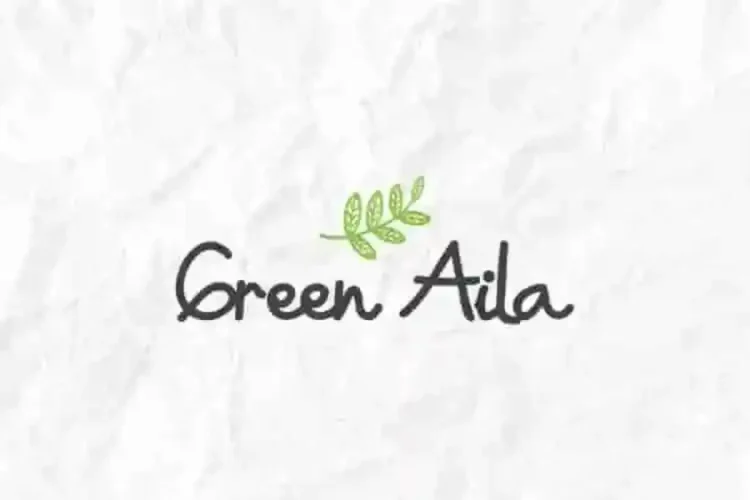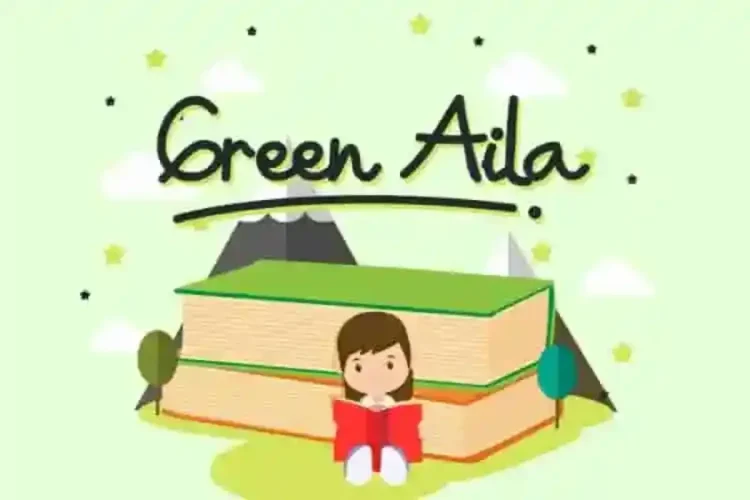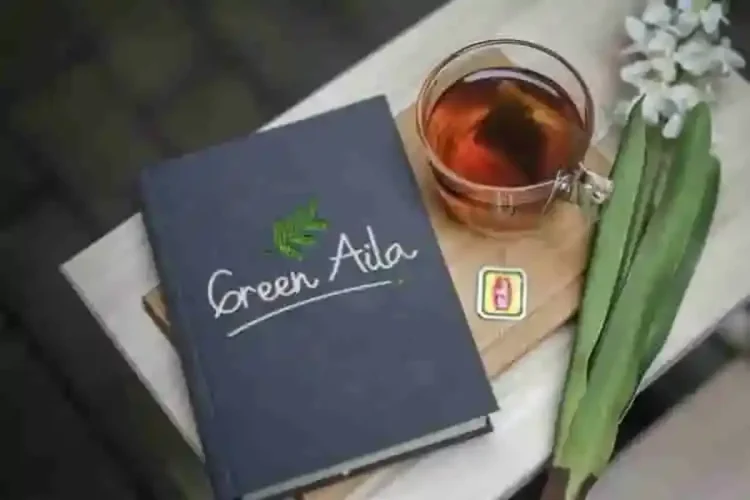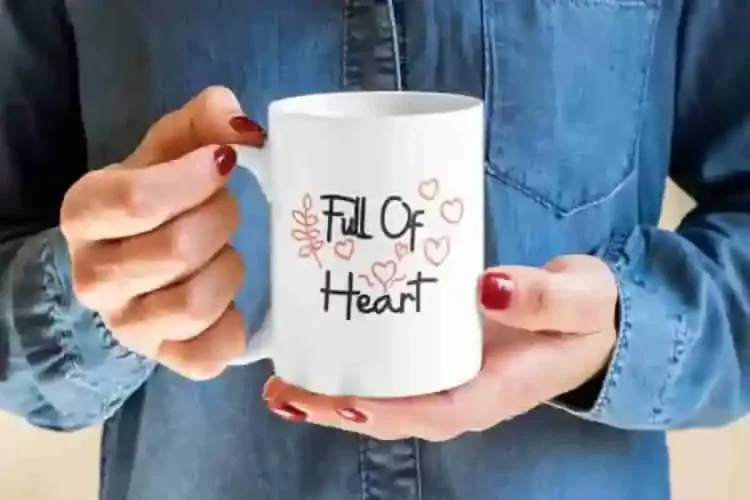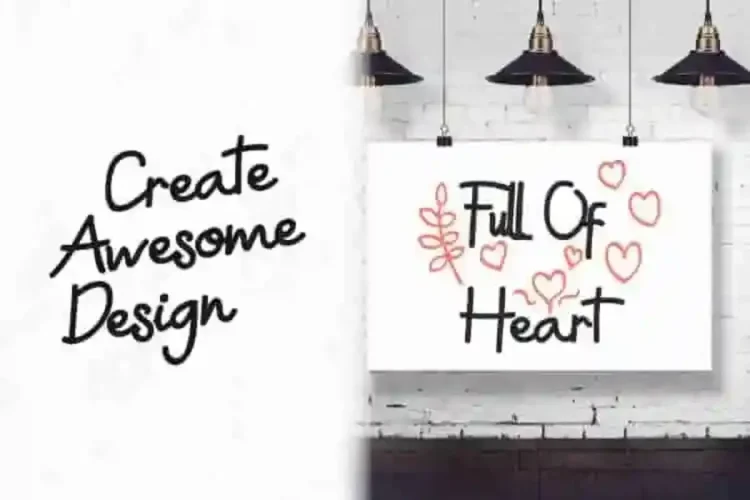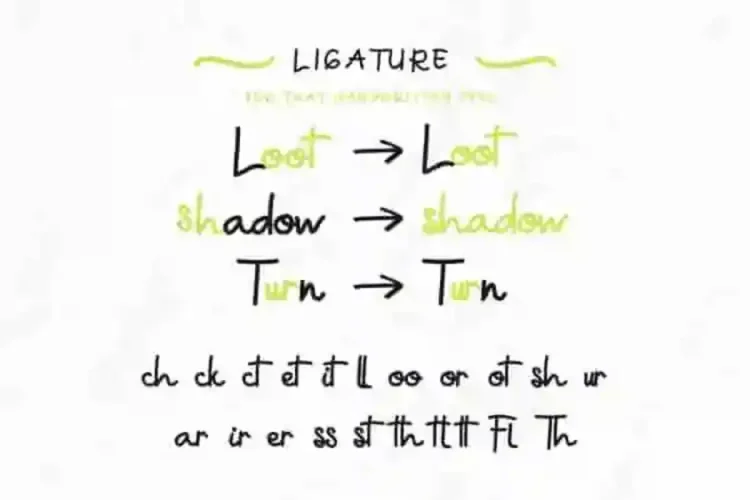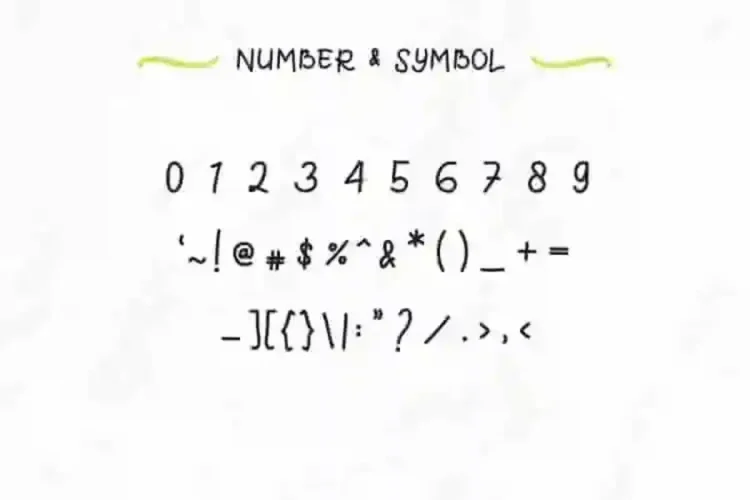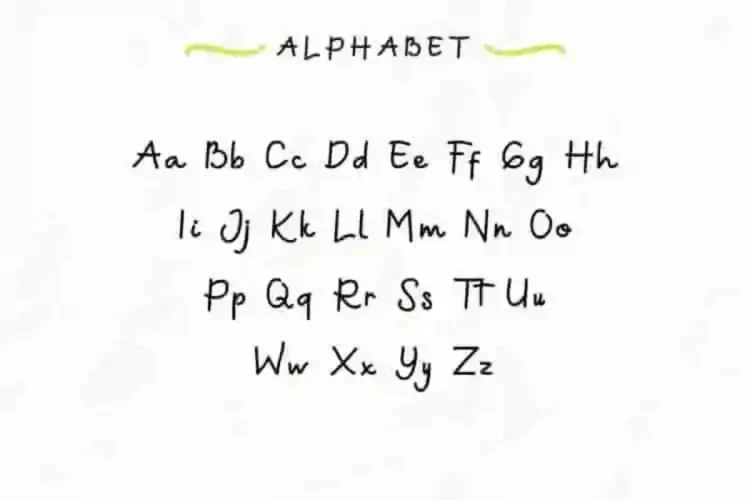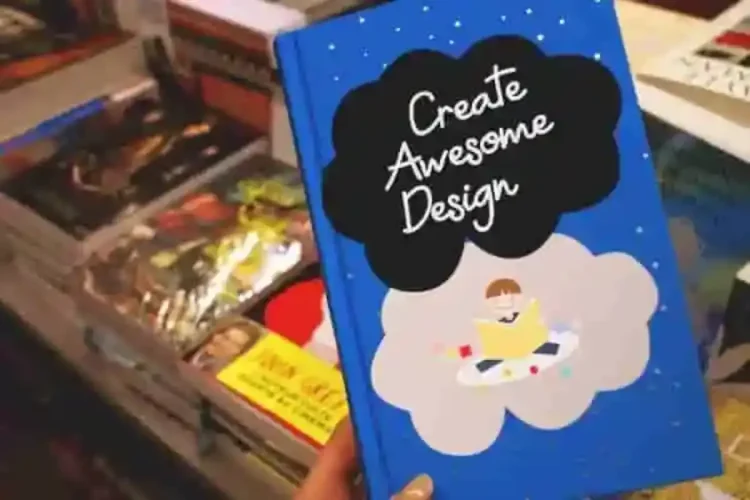
Introducing Green Aila!
Green Aila, it’s a delightful comic-style handwriting font that brings joy, friendliness, and personality to your designs. Whether you’re working on a school project, children’s book, or fun merchandise, Green Aila is here to make your visuals shine with a playful twist.
Designed with a casual, hand-drawn touch, Green Aila captures the spirit of natural handwriting with a comic vibe. The rounded shapes, smooth curves, and clean strokes make it extremely easy to read while adding warmth and charm to every word.
Perfect for a wide variety of projects, including:
- Kids-themed designs & educational posters
- Greeting cards, tags, and banners
- Fun logos & product packaging
- Social media content, covers, and invitations